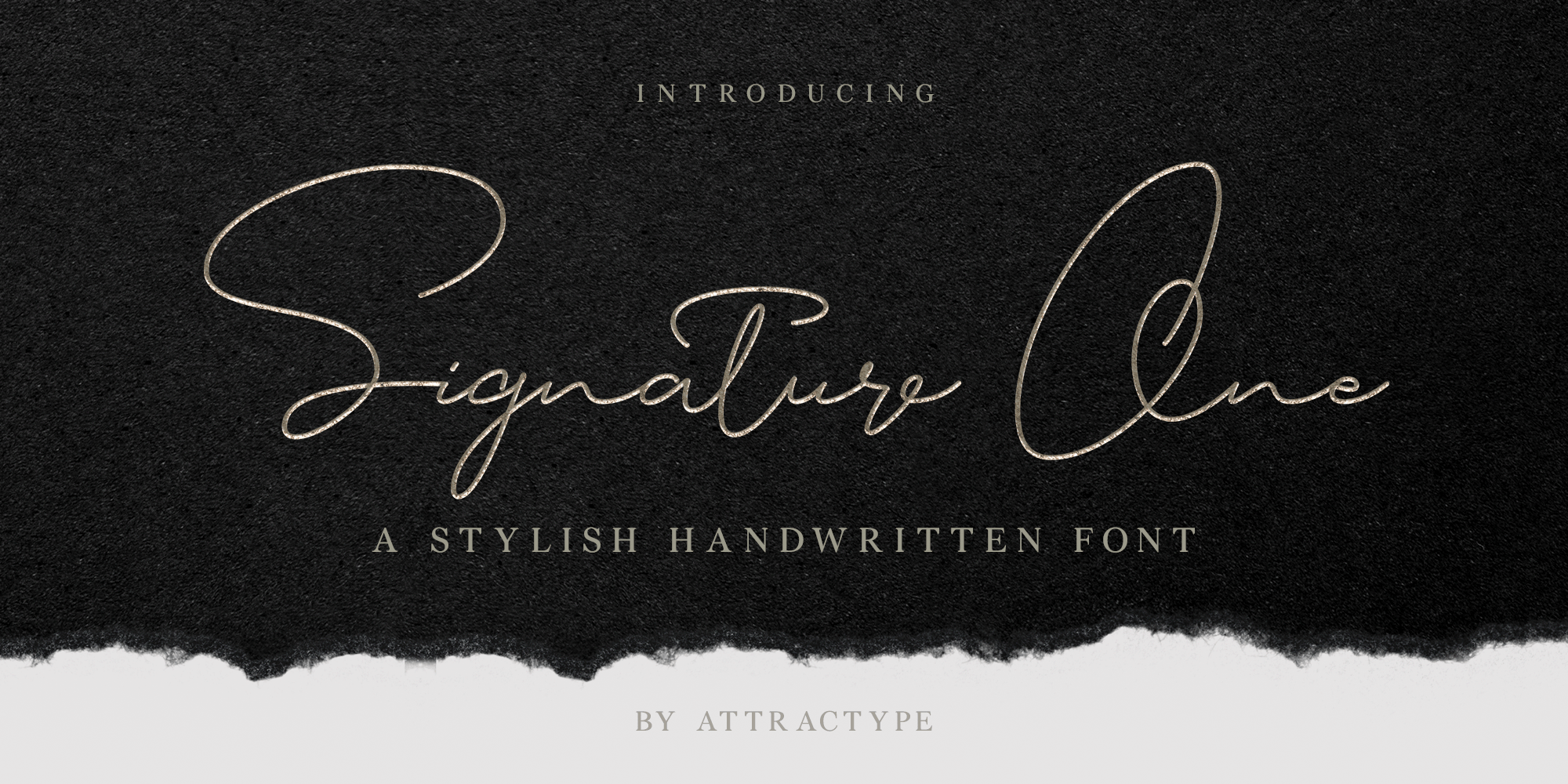
Signature One Font is perfect for personal branding logos, handwritten signature designs, luxury autograph collections, exclusive document signing, premium business cards, personalized stationery, VIP correspondence materials, distinguished legal documents, executive signature lines, and prestigious applications that celebrate the power and authenticity of personal signature identity.
What makes Signature One Font truly exciting is its authentic representation of personal signature artistry and individual identity that captures the unique character and distinctive presence that defines truly memorable personal branding. This exceptional typeface embodies the essence of handwritten authenticity with its flowing letterforms and signature-style character that convey both personal distinction and professional credibility. The font's signature personality and individual authenticity make it perfect for professionals seeking to communicate personal brand identity, exclusive positioning, and the transformative power of authentic personal signature that creates instant recognition and establishes individual authority.
The Signature One Font family includes multiple weights and styles: Light, Regular, Bold, Flowing, and Exclusive variations designed for maximum personal impact. Each family member maintains the distinctive signature character while offering flexibility for diverse personal applications and individual branding systems. The comprehensive character set supports signature typography needs and personal design elements, making it suitable for international signature communications.
When you choose Signature One Font Free Download, you're selecting a typography identity that delivers authentic signature credibility and personal distinction to every exclusive project. This distinctive typeface excels in applications where personal identity and signature authenticity are paramount, delivering exceptional individual appeal while maintaining handwritten legitimacy. Whether you're designing personal brands, signature campaigns, exclusive materials, or distinguished marketing content, this font provides the signature sophistication and personal authenticity that resonates with professionals who appreciate individual distinction, personal branding excellence, and the powerful impact of authentic signature identity that sets them apart from the competition.